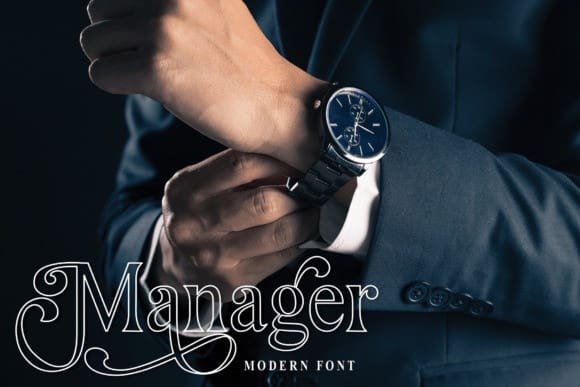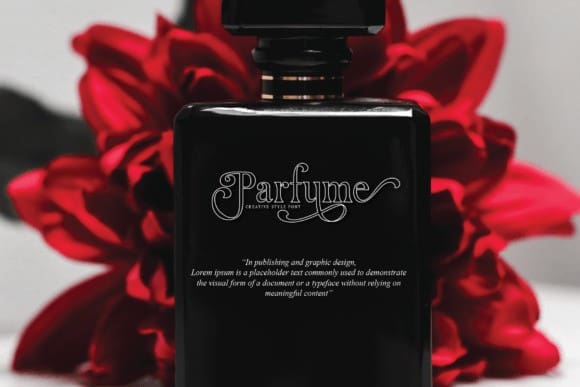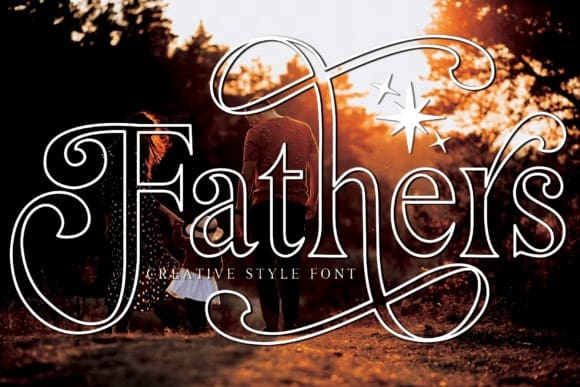
Fathers Outline Font
Fathers Outline Font, is a beautiful and elegant script signature font. Its luxurious letters are perfect for wall displays, wedding invitations, social media post, logos, advertisements, product packaging, product designs, labels, photography, watermarks, invitations, stationery, and any project that requires a sophisticated touch.